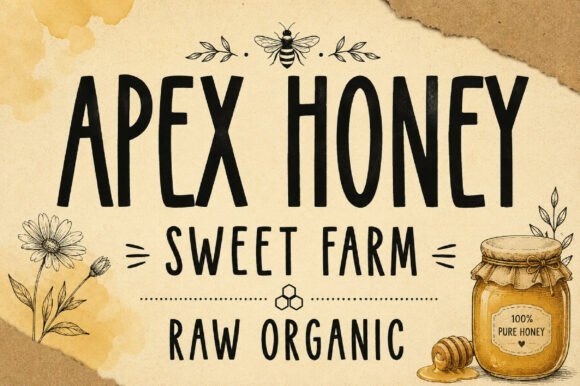
When Typography Tells a Story: Introducing Apex Honey Font
As designers, we’ve all been there – staring at a blank canvas, trying to bring our creative vision to life. And then, it happens: the perfect font falls into place, elevating our entire design. For many of us, that moment is what makes all the hard work worth it. And today, we’re excited to introduce you to a font that’s sure to become your new favorite – Apex Honey Font.
With its unique blend of playful charm and bold personality, Apex Honey Font is the perfect addition to any design project. Its tall, handwritten letterforms and slightly irregular shapes make it stand out from the crowd, adding a touch of creativity and whimsy to even the most straightforward designs. Whether you’re working on a poster, logo, or social media graphic, this font is sure to bring your typography to life in a whole new way.
Apex Honey Font Key Features
- Unique Characteristics: Apex Honey Font features a unique blend of modern and vintage elements, with a warm and inviting tone that is perfect for creative and design-oriented projects.
- Character Set: The font includes a comprehensive character set, including uppercase and lowercase letters, numerals, punctuation marks, and special characters, ensuring that designers have all the necessary tools to create professional-looking designs.
- Language Support: Apex Honey Font supports a wide range of languages, including English, Spanish, French, German, Italian, Portuguese, and many more, making it a great choice for designers working on international projects.
Apex Honey Font Review
Overall, I was excited to dive into the Apex Honey Font. At first glance, it has a unique and modern look that’s perfect for digital designs. ✨ The font’s clean lines and elegant feel make it a great choice for branding and advertising materials. ✨ I also appreciate the font’s versatility, as it can be used for both display and body text. ✨
However, there are some limitations to consider. ⚠️ The font’s legibility can be a concern, especially at smaller font sizes. ⚠️ Some letters, like ‘e’ and ‘o’, can be easily mistaken for each other, which may cause issues in certain contexts. ⚠️ Additionally, the font’s width can vary depending on the letter, which may affect the overall alignment of text.
Overall, I would give the Apex Honey Font 3.5 out of 5 stars. While it’s a great choice for certain projects, its limitations may make it less suitable for others. With some careful consideration and adjustment, I think this font can be a valuable addition to any designer’s toolkit.
Here are some specific pros and cons:
- ✨ Unique and modern look
- ✨ Versatile for display and body text
- ✨ Clean lines and elegant feel
- ⚠️ Legibility concerns at smaller font sizes
- ⚠️ Potential for letter confusion
- ⚠️ Variable font width
Apex Honey Font is ideal for creating elegant and modern designs in Canva.
Apex Honey Font is perfect for creating sophisticated and stylish designs in Adobe Photoshop or Illustrator.
Apex Honey Font is ideal for creating professional and elegant presentations and documents in PowerPoint or Word.
Some common use cases for Apex Honey Font include:
- Corporate branding and marketing materials
- Designing elegant menus and labels
Remember to experiment with different font sizes, colors, and styles to get the most out of Apex Honey Font.
Alternatives to Apex Honey Font
Great Vibes is a modern, elegant script font that is perfect for creative and artistic projects. It is ideal for use in branding, logos, and typography-based designs where a touch of sophistication is needed. Great Vibes is more refined and polished compared to Apex Honey Font, which has a more casual and handwritten feel.